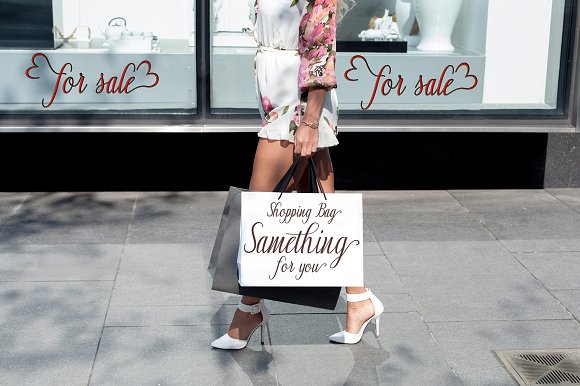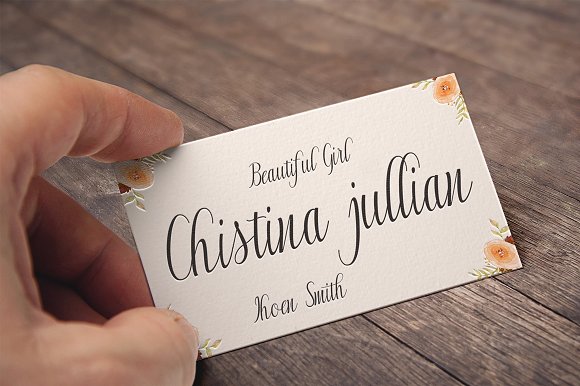
Breakfast and Chill Script Font
Breakfast and Chill, A handwriting script font with edgy fashion concept implementation to give some classy glam feminine touch to any kinda design on this planet. Perfectly fit for feminine fashion branding, logo, casual headline, website header, magazine content, social media marketing, touch the digital platform with the natural handwriting feels from this font to make your engagement to the audience higher!